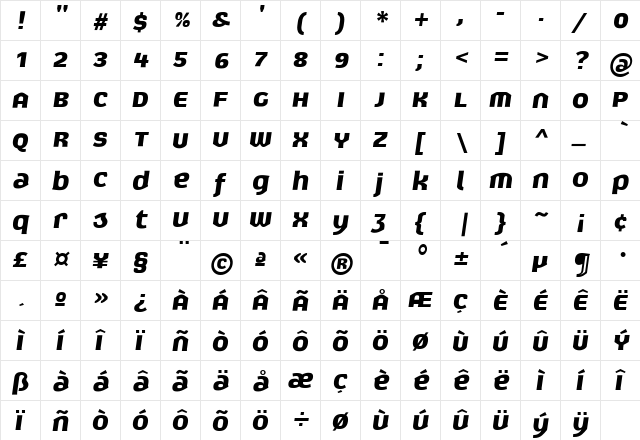
Exert ItalicBold
Design Context for Exert Typeface
Exert takes a measured approach to typography — its balanced proportions and neutral character make it a reliable workhorse for both digital and print work. Its italic angle brings a sense of urgency and motion to the letterforms. Its bold stroke weight gives it real presence on the page.
Pro Tip: Try Exert for annotation and caption copy alongside an upright companion — the contrast in angle creates a dynamic but ordered typographic system.